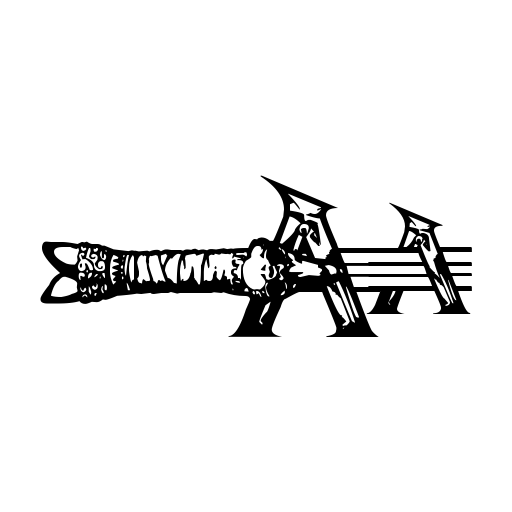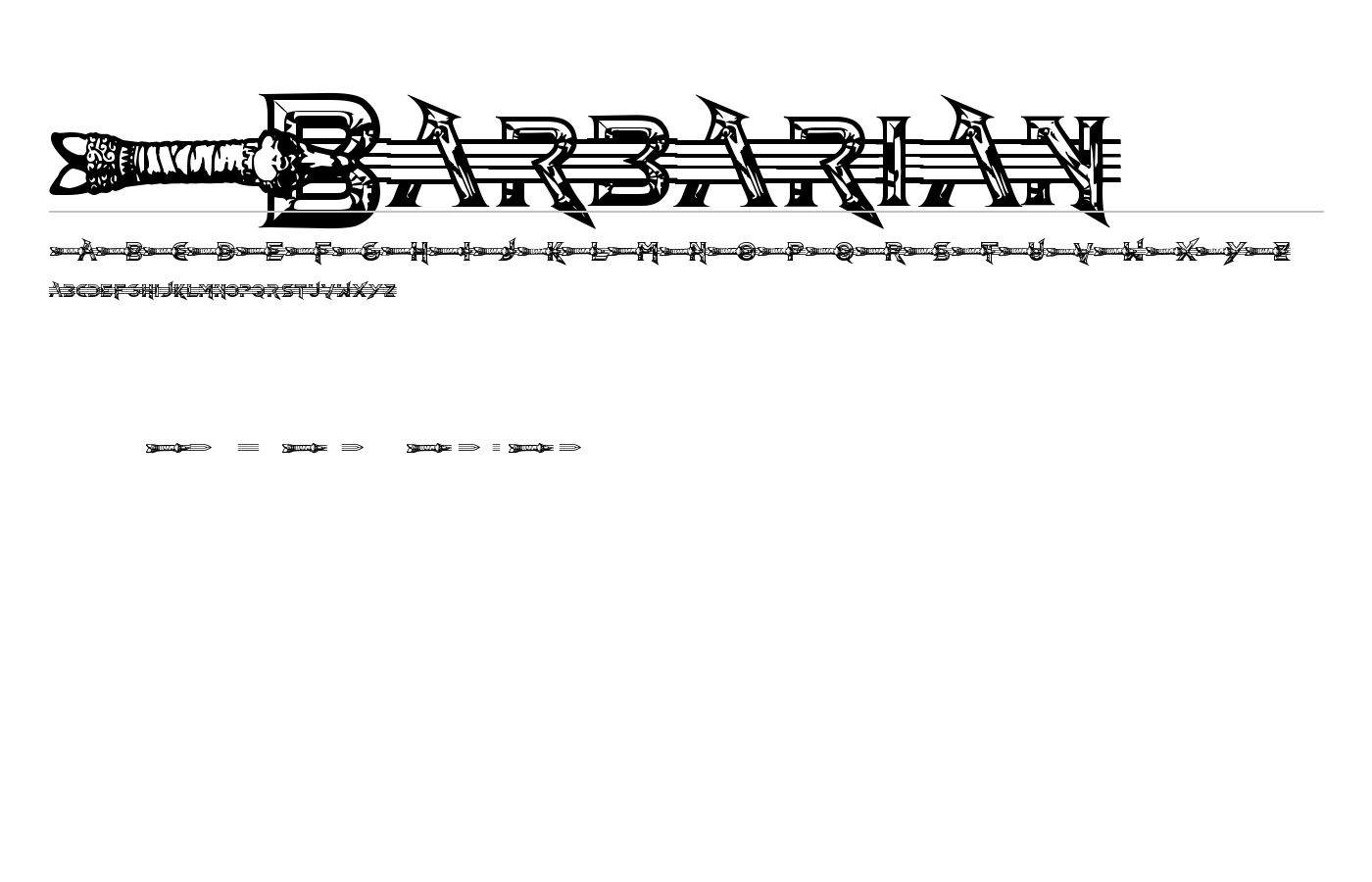
Barbarian Font is a dramatic serif typeface with sharp, angular strokes and strong contrasts that evoke a bold, fierce character. Its design features intricate detailing resembling weapons, giving it a rugged, warrior-like personality ideal for fantasy themes, gaming, or adventure branding. This font works best in large display settings such as logos, posters, and headlines where its distinctive look can create a powerful visual impact.
Barbarian Font
About Barbarian Font